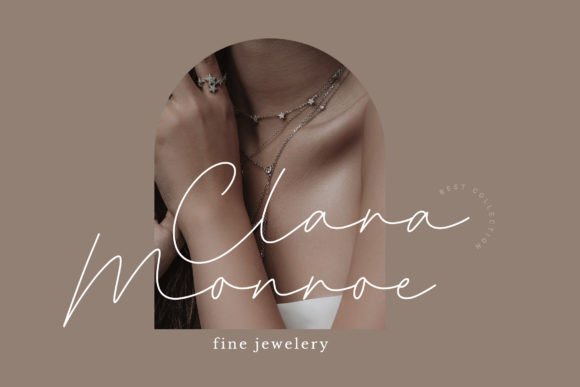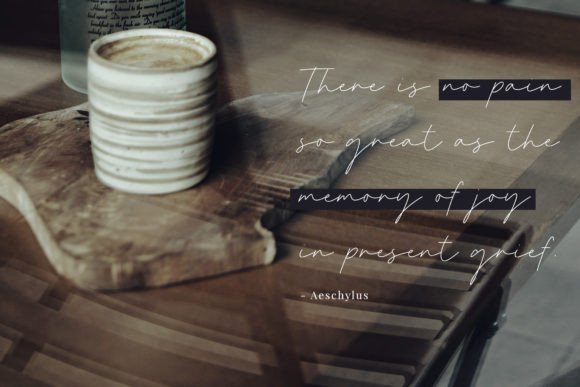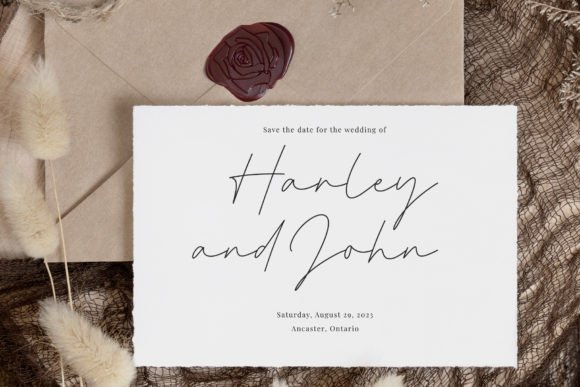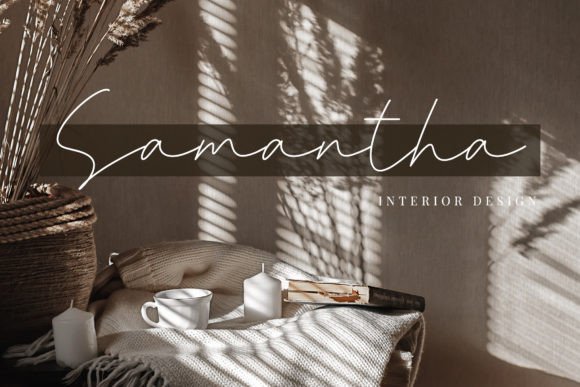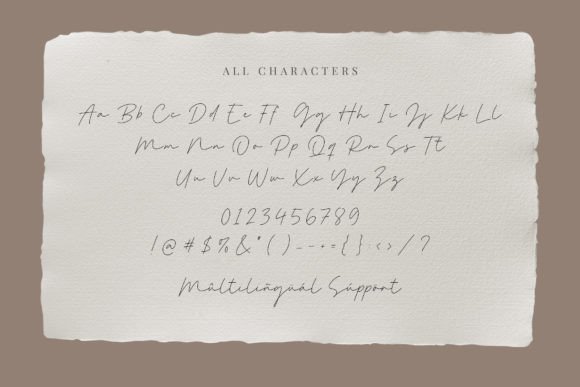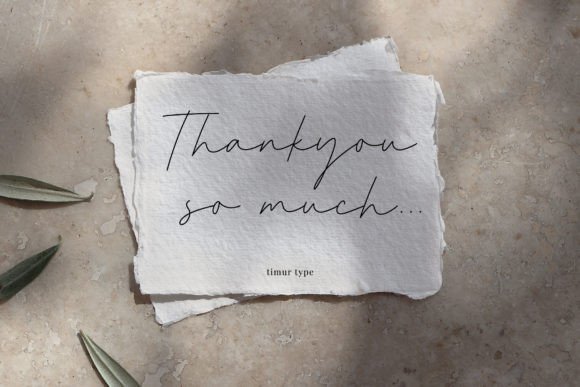
Introduction to Jasmine Serenity Font
Jasmine Serenity is a Handwritten Script Font, which was created with great care and specially created for you 😊 Jasmine Serenity is perfect for product packaging, branding project, magazine, social media, weddings, or just used to express words above the background.
Jasmine Serenity is a Handwritten Script Font, which was created with great care and specially created for you 😊 Jasmine Serenity is perfect for product packaging, branding project, magazine, social m
Key Features of Jasmine Serenity Font